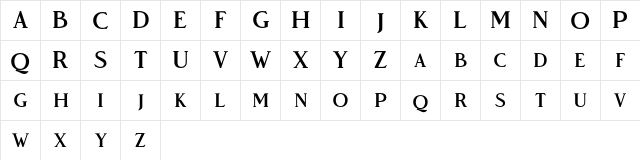
Vendeur Free Regular
Design Context for Vendeur Free Typeface
Vendeur Free takes a measured approach to typography — its balanced proportions and neutral character make it a reliable workhorse for both digital and print work.